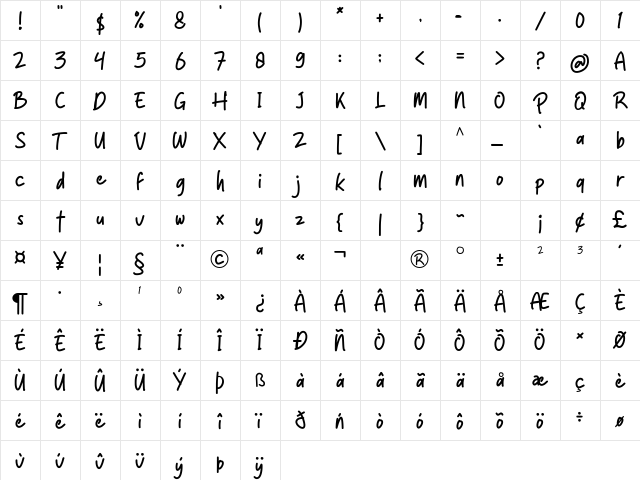
Monkey Geek is a composed and adaptable typeface that performs quietly and consistently across a wide range of design contexts.
Pro Tip: Use Monkey Geek in both headline and body roles to test its range before committing to a single application.